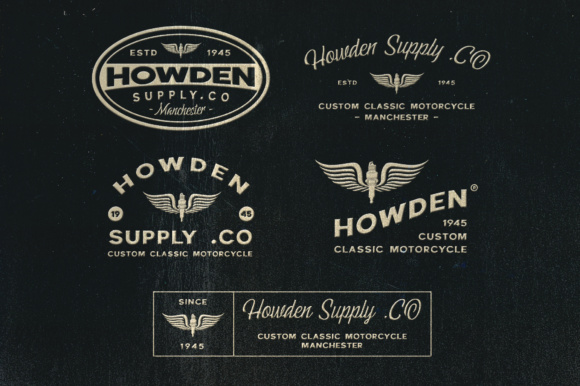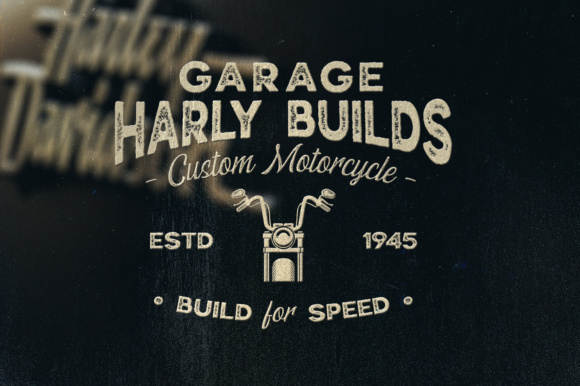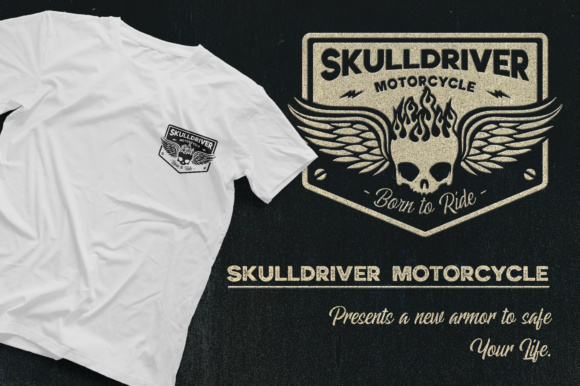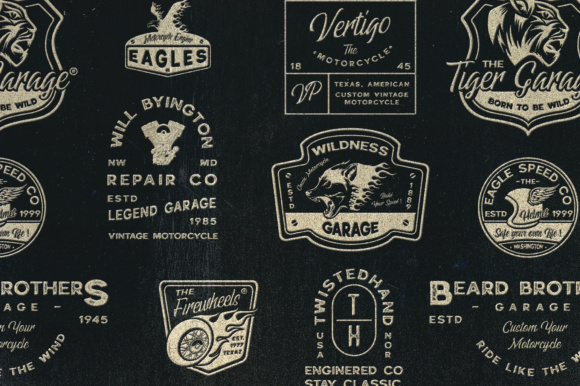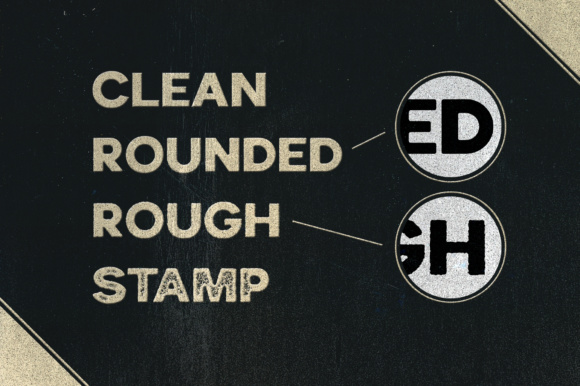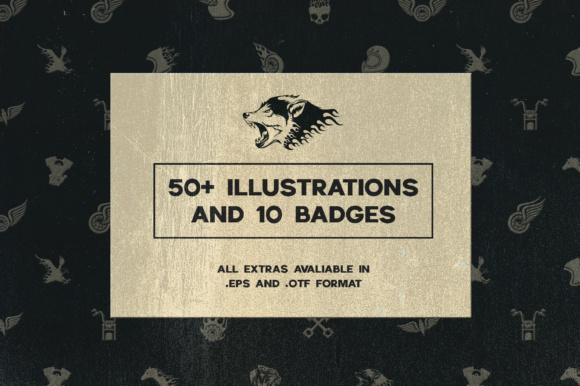
Echomotors Family Font: A Comprehensive Collection for Designers and Crafters
In the world of typography, a font collection can make all the difference in creating visually appealing designs. The Echomotors Family Font is one such comprehensive collection that offers a range of styles and variations to cater to diverse design needs. In this article, we’ll delve into the features and benefits of the Echomotors font collection, exploring its potential applications and uses for designers and crafters.
Overview of Echomotors Font Collection
The Echomotors font collection is a versatile and dynamic set of typefaces that includes bold, sans, and script variations. This extensive collection comprises four distinct styles: sans, rounded, rough, and stamp. Each style offers a unique aesthetic, allowing designers to experiment with different looks and feels for their projects.
Design Applications and Uses
The Echomotors font collection is suitable for a wide range of design applications, including:
- Logotypes: Create memorable and impactful logos with the Echomotors font collection.
- Magazines and Headline Blogs: Use the font collection to create engaging headlines and titles for magazines and blogs.
- Websites: Enhance your website’s typography with the Echomotors font collection, ensuring a consistent and professional look.
- Packaging: Add a touch of elegance and sophistication to your packaging designs with the Echomotors font collection.
- Branding: Develop a strong brand identity with the help of the Echomotors font collection.
Extras and Templates
The Echomotors font collection comes with a range of extras and templates to support designers in their creative endeavors. These include:
- Illustrations: A set of illustrations to enhance your designs and add visual interest.
- Badges: A collection of sample badges that are editable and available in different layouts, frame badges, and illustrations.
- Logo Templates: Five logotype vintage templates are included, allowing designers to create professional-looking logos with ease.
Key Benefits for Designers and Crafters
The Echomotors font collection offers several benefits for designers and crafters, including:
- Versatility: With four distinct styles and a range of extras, the Echomotors font collection offers unparalleled versatility.
- Time-Saving: The inclusion of pre-designed templates and illustrations saves designers time and effort.
- Consistency: The font collection ensures consistency in typography across various design projects.
- Ease of Use: The Echomotors font collection is easy to use, even for designers with limited typography experience.
Tips and Tricks for Getting the Most Out of Echomotors
To maximize the potential of the Echomotors font collection, consider the following tips and tricks:
- Experiment with Different Styles: Don’t be afraid to try out different styles and combinations to find the perfect look for your project.
- Mix and Match: Combine the Echomotors font collection with other design elements to create a unique and visually appealing design.
- Pay Attention to Typography: Ensure that your typography is clear, readable, and consistent throughout your design.
The Echomotors font collection is a valuable resource for designers and crafters seeking to elevate their typography and create visually stunning designs. With its range of styles, extras, and templates, this comprehensive collection offers unparalleled versatility and convenience. Whether you’re working on a logo, magazine, website, or packaging design, the Echomotors font collection is sure to become an essential tool in your design arsenal.